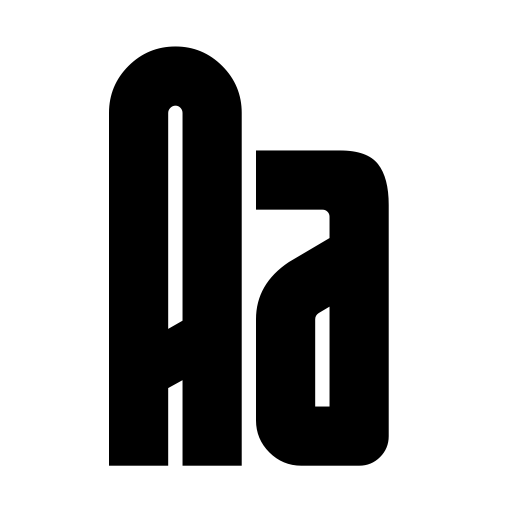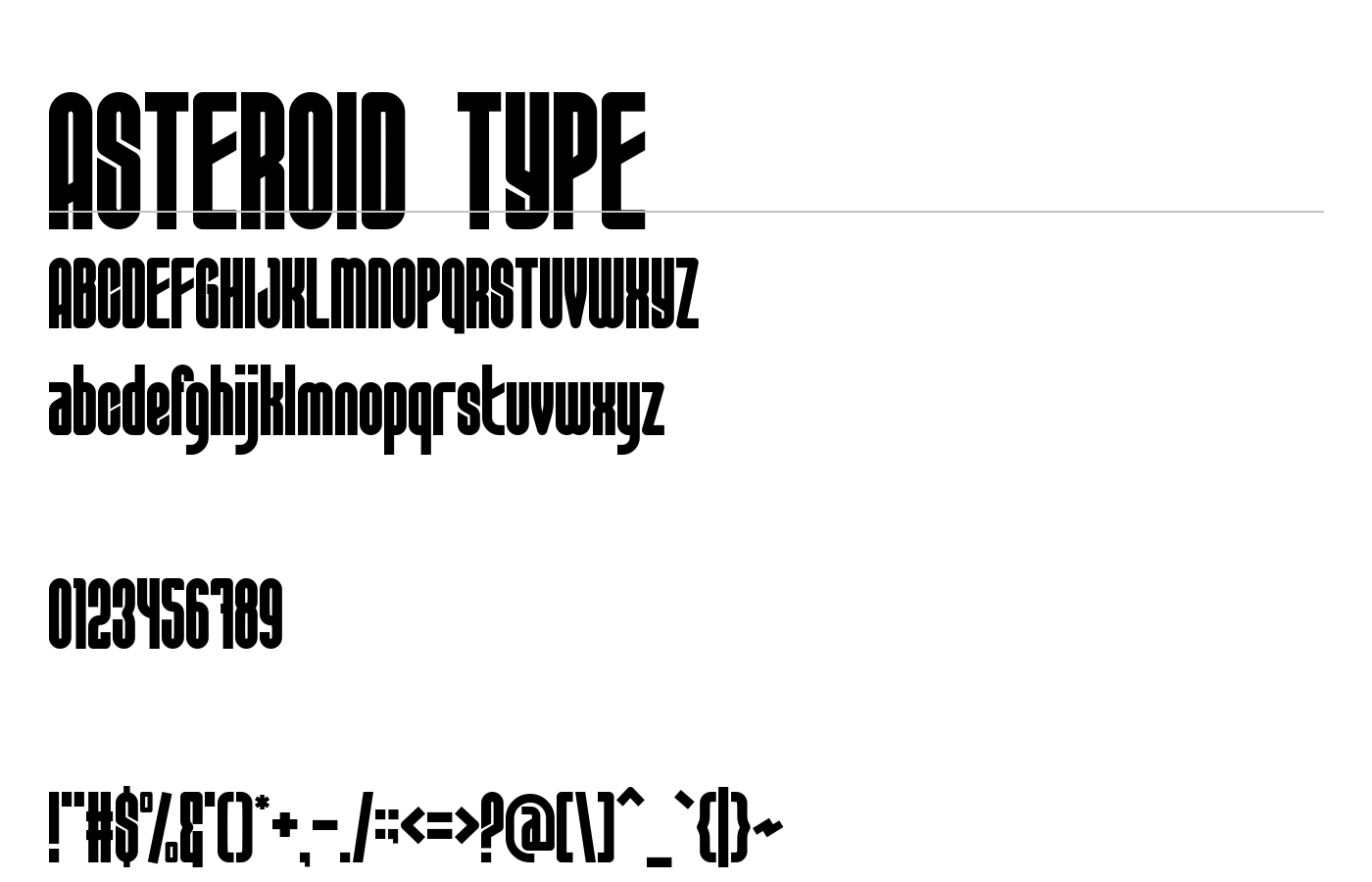
Asteroid Type is a bold, condensed sans serif font with a modern and geometric style, characterized by its tall, narrow letterforms and uniform stroke weight. Its compact design and high-impact presence make it ideal for striking headlines, logos, and posters that require a strong, futuristic vibe. This font conveys a sense of innovation and urban edge, perfectly suited for brands seeking a distinctive and contemporary look.
ASTEROID TYPE Font
About ASTEROID TYPE Font
| Font family | ASTEROID TYPE Font |
| Designer | Virgiawan Listanto. 2023 |